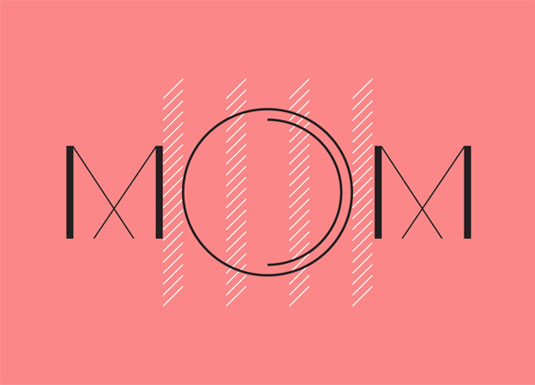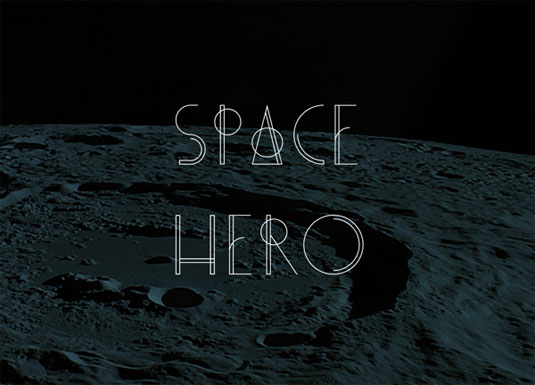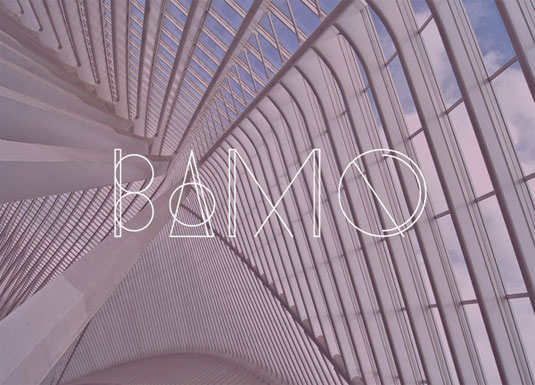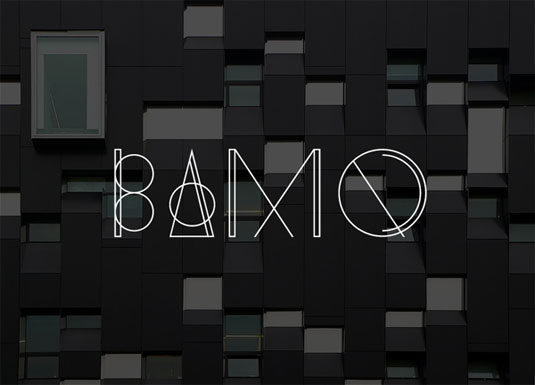
Font of the day: Bamq
Bamq by Gulay Inceoglu
Designed by New York based creative Gulay Inceoglu, the Bamq typeface was inspired by the art deco movement, with geometric shapes and big spaces. The BAMQ Family set is composed by the styles: Regular and Bold and it's available for commercial use!